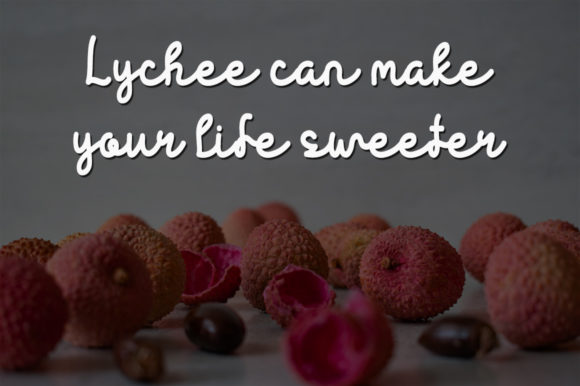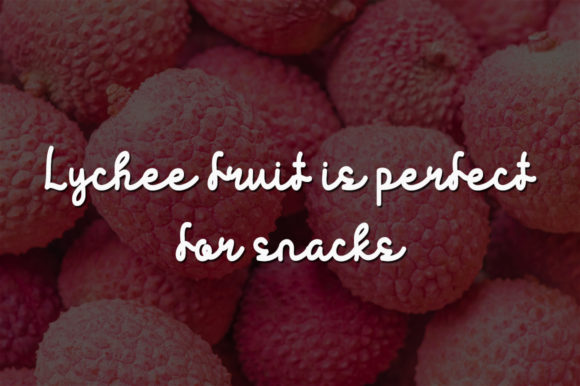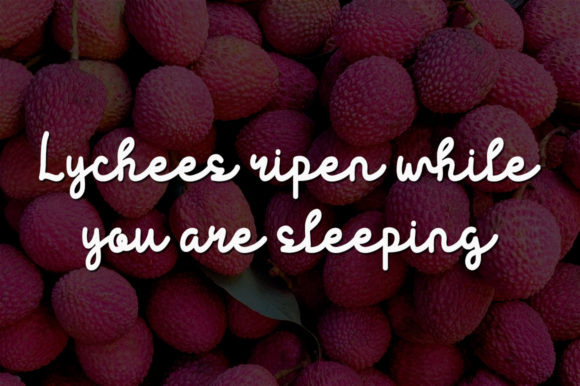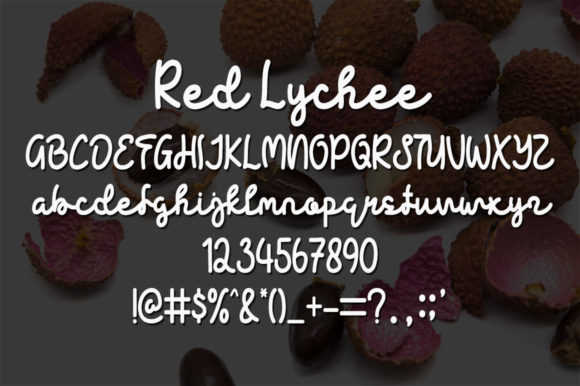
Red Lychee Font
About Red Lychee Font
Red Lychee is a classic and flowing handwritten font. Simple and easy to use, this font will be very beautiful if you mix it with your various craft designs.